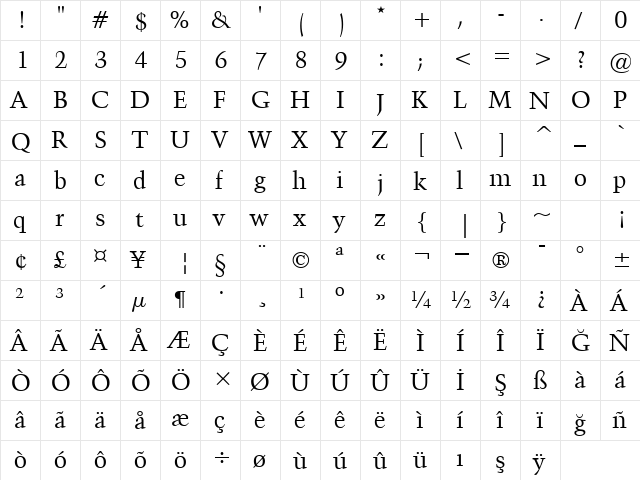
00352 Regular
Design Context for 00352 Typeface
00352 is a composed and adaptable typeface that performs quietly and consistently across a wide range of design contexts.